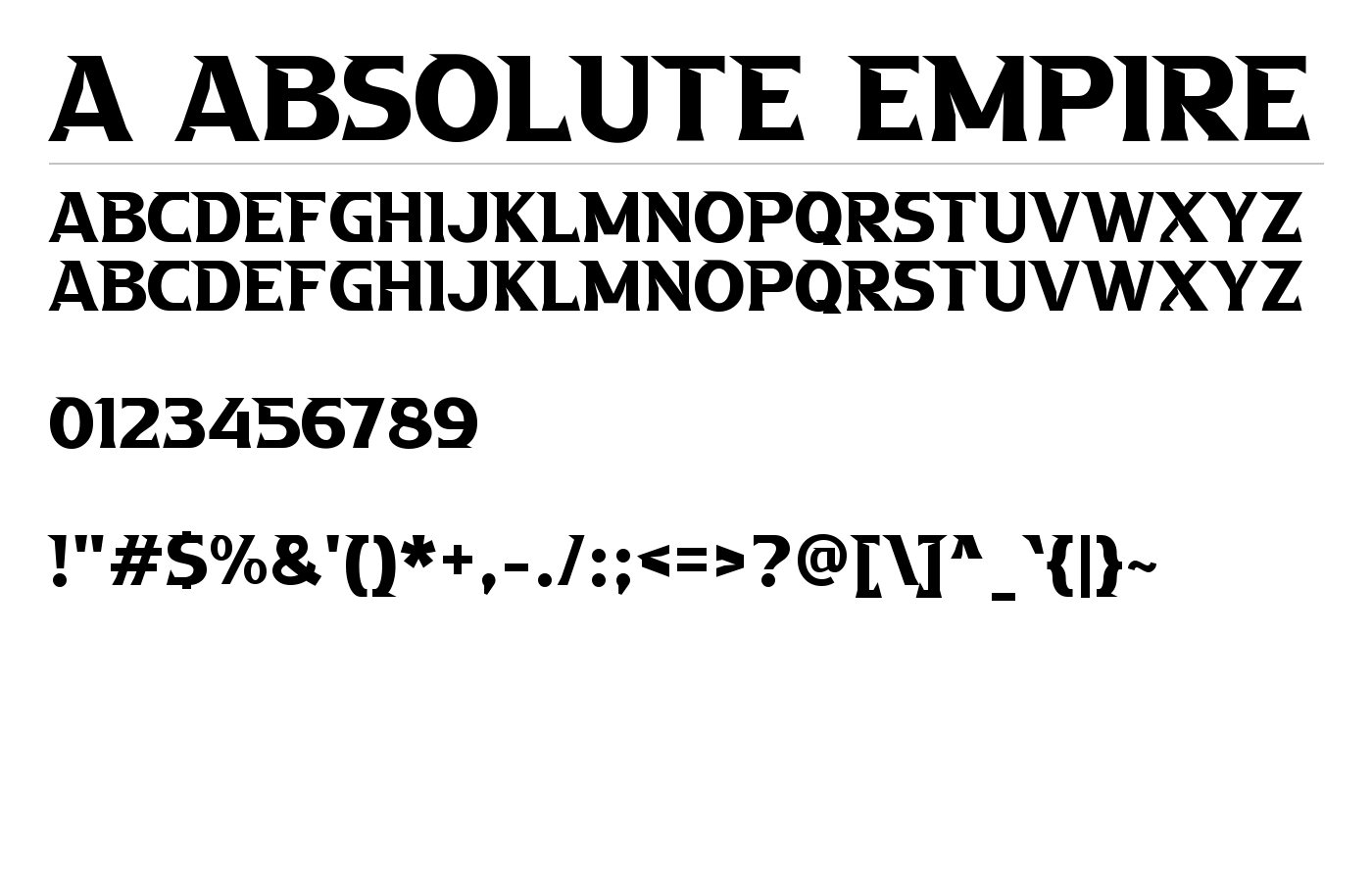
Absolute Empire is a bold serif typeface with a strong, commanding presence. Its sharp, angular serifs and high contrast between thick and thin strokes give it a vintage yet authoritative feel, making it perfect for impactful headlines, logos, and branding that seek to convey power and elegance. This font works well in designs that require a dramatic and classic style with a modern edge.
a Absolute Empire Font
About a Absolute Empire Font